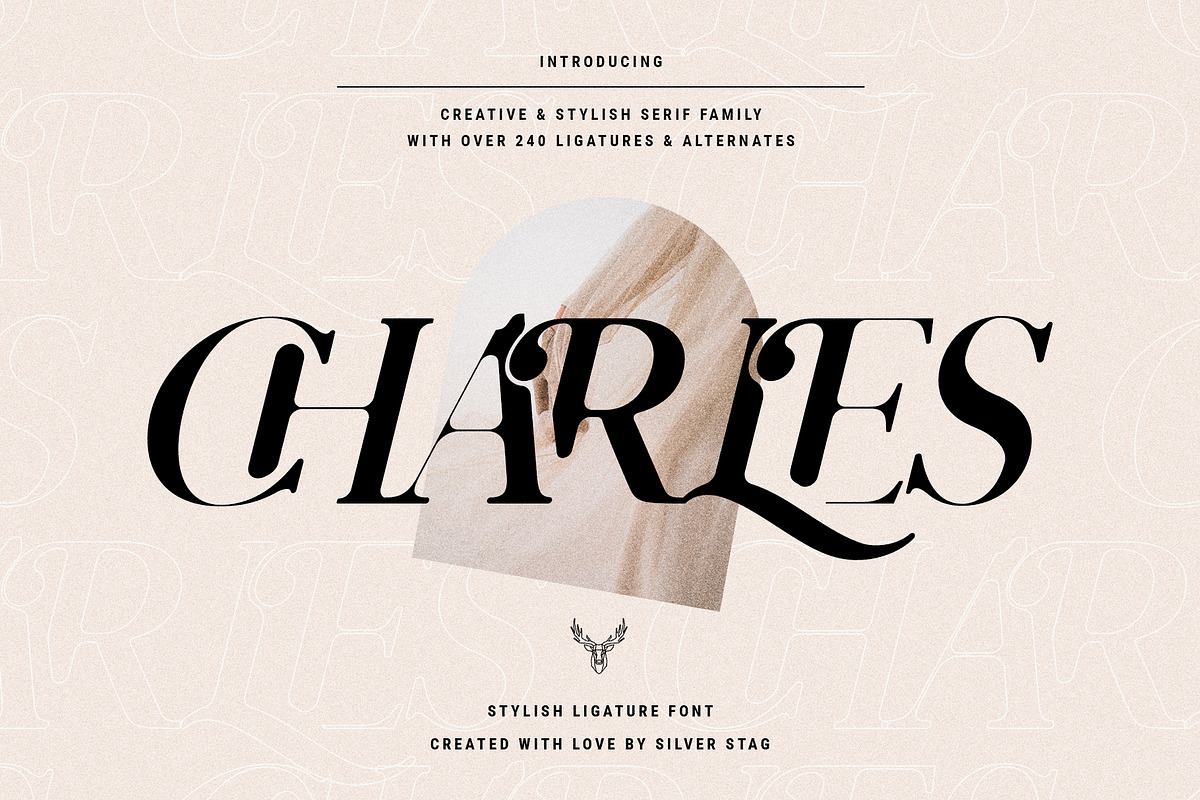
Charles Ligature Serif Font Family Free Download is an elegant and versatile typeface designed by Silver Stag. This font family includes six distinct styles: Regular, Regular Outline, Italic, Italic Outline, Extra Italic, and Extra Italic Outline, providing a range of options for various design projects.
Charles features over 200 ligatures and alternate characters, allowing for the creation of unique and sophisticated typography. Its chic and modern aesthetic makes it suitable for branding, editorial designs, logos, and more.